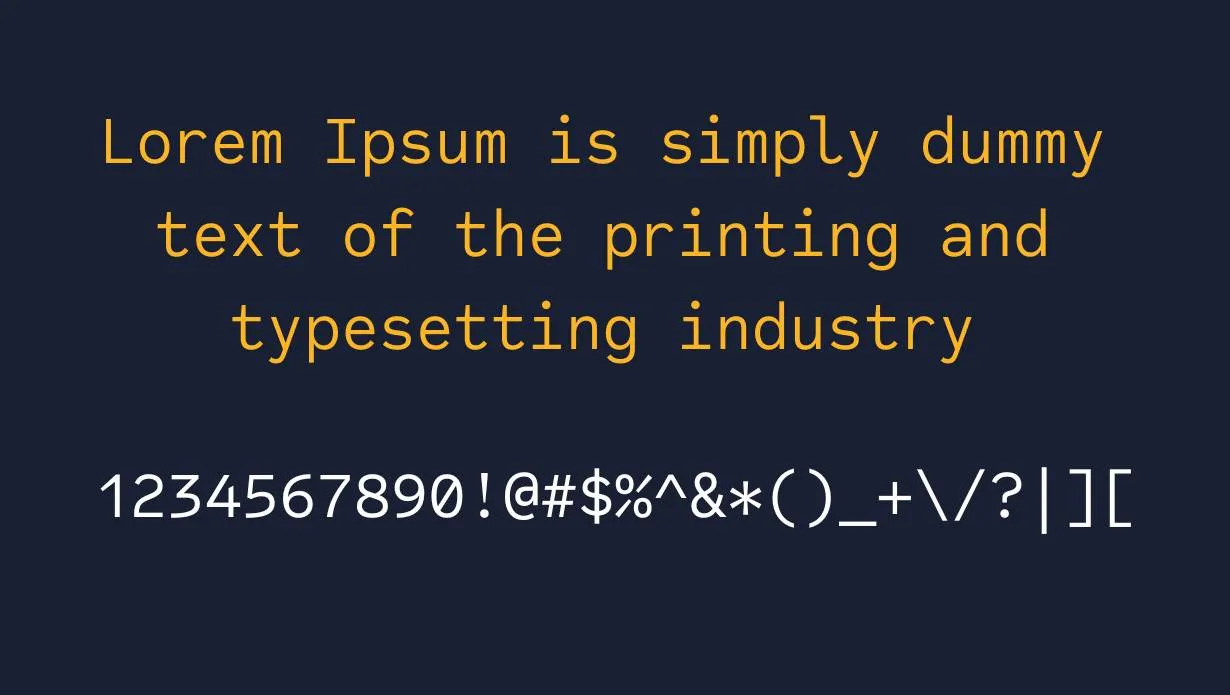
Code Saver font acts as a trusty sidekick for digital wizards, simplifying the complex language of programming. When crafting code snippets for websites or apps, Code Saver becomes your ally, ensuring a clear and uncluttered appearance with its crisp weight.
The neutrally proportioned width effortlessly aligns lines of code, creating a seamless coding experience, akin to a secret handshake between you and your computer.